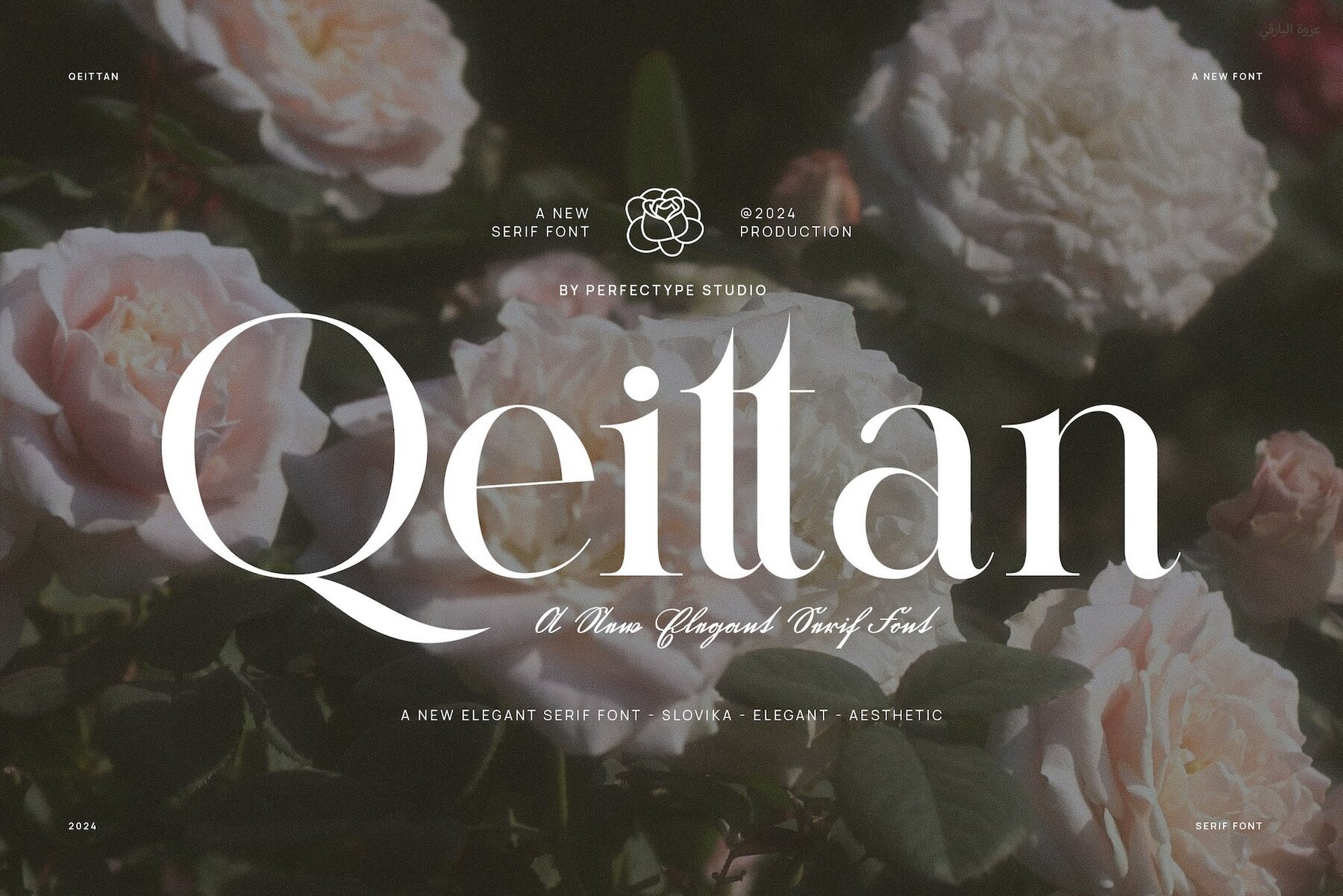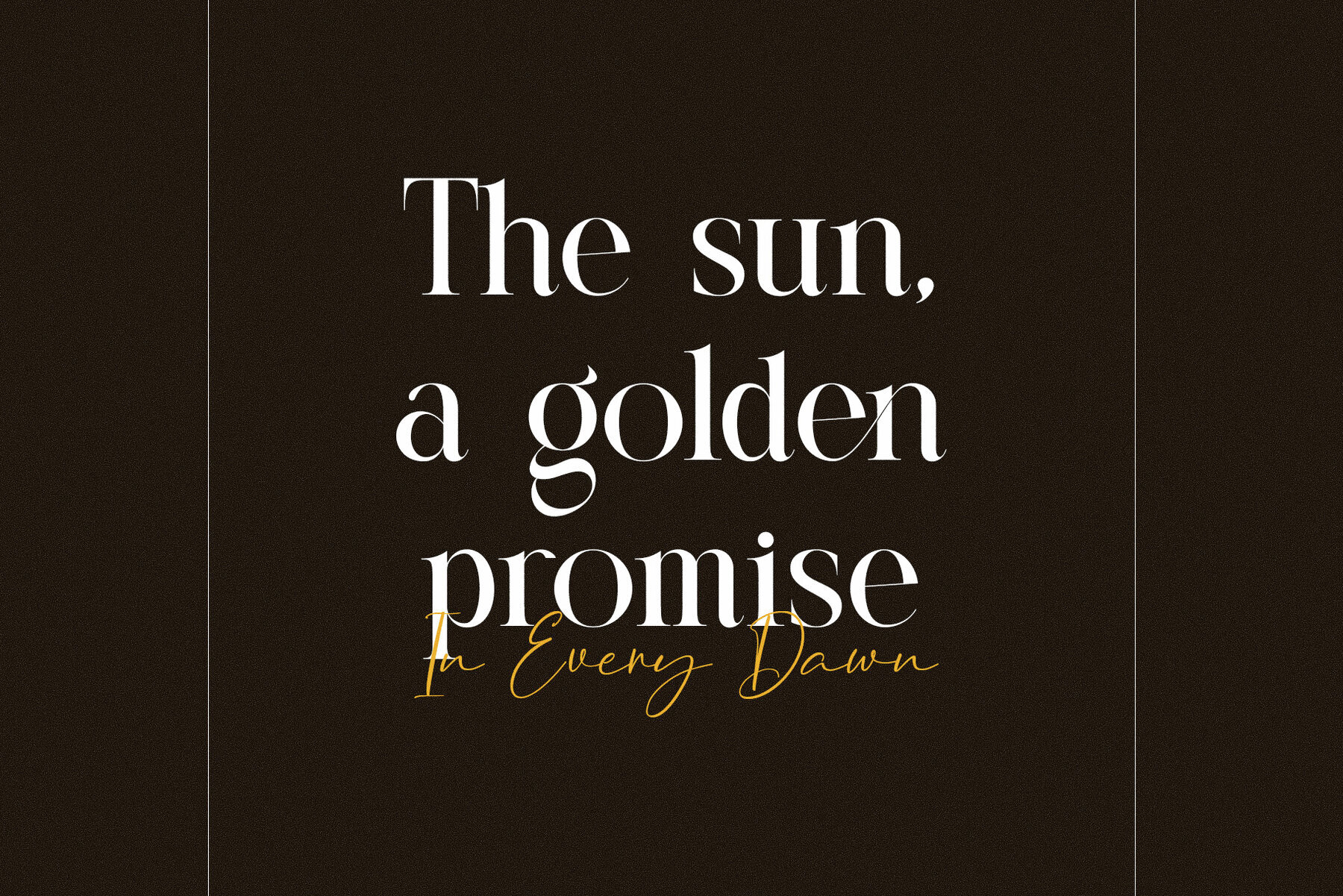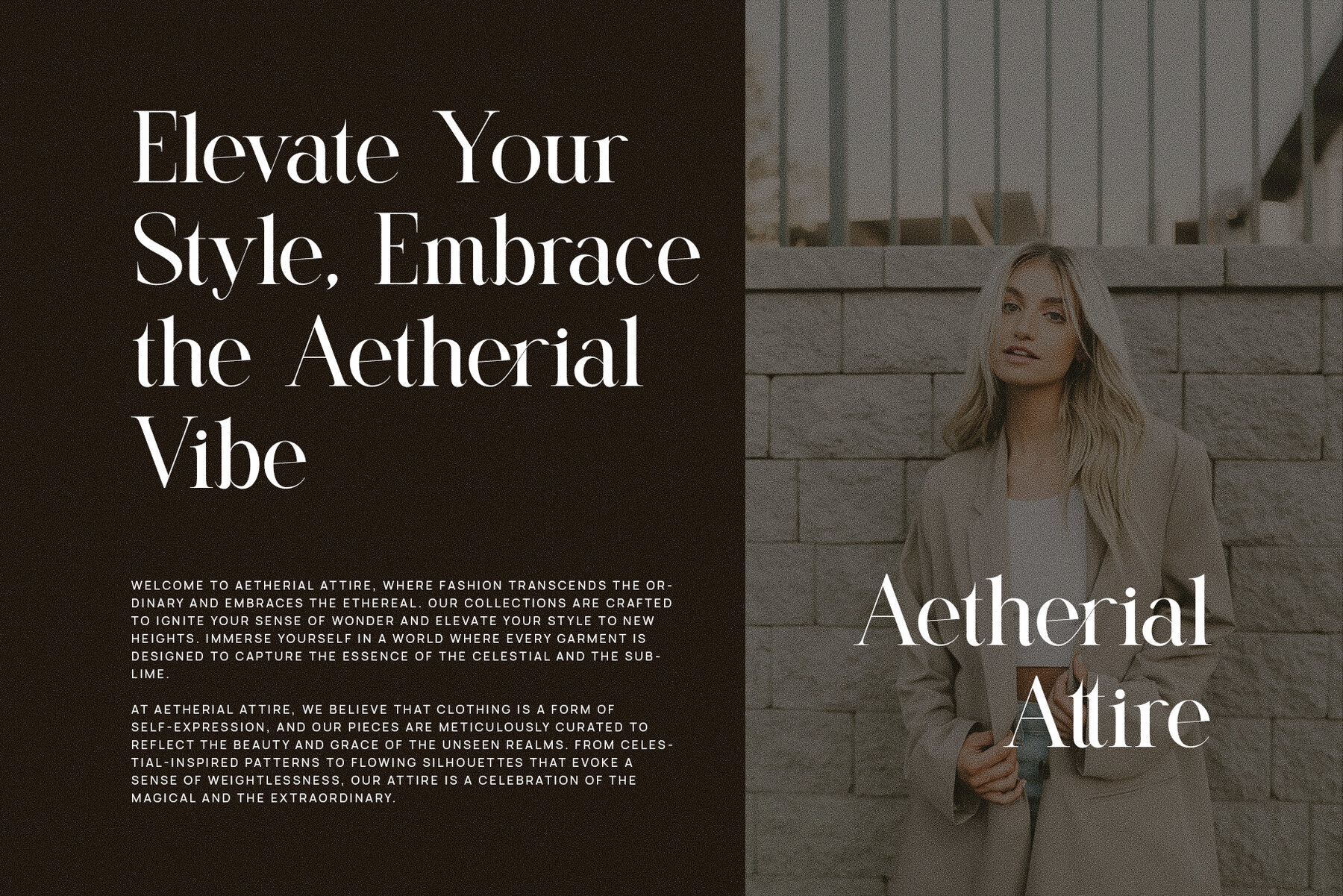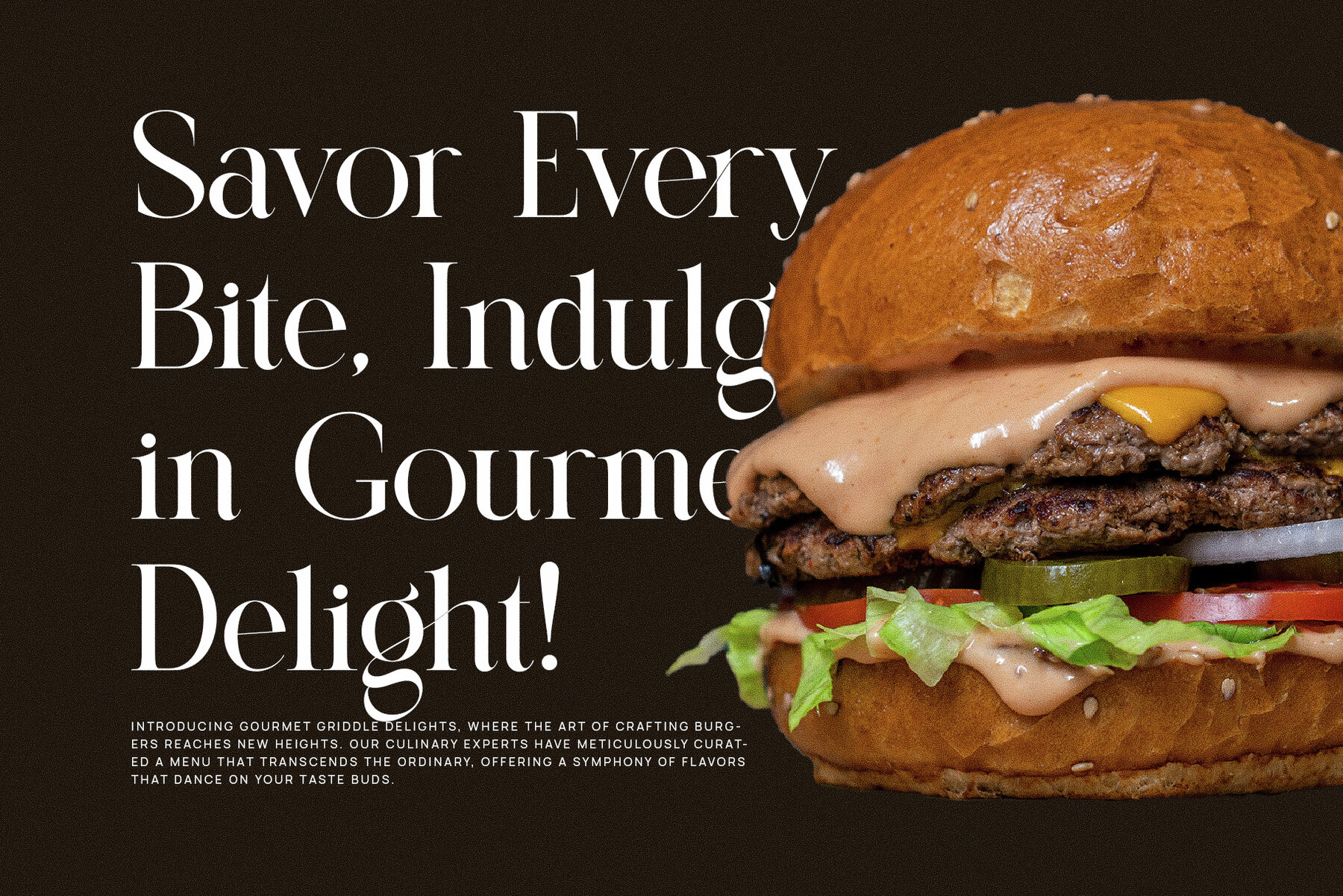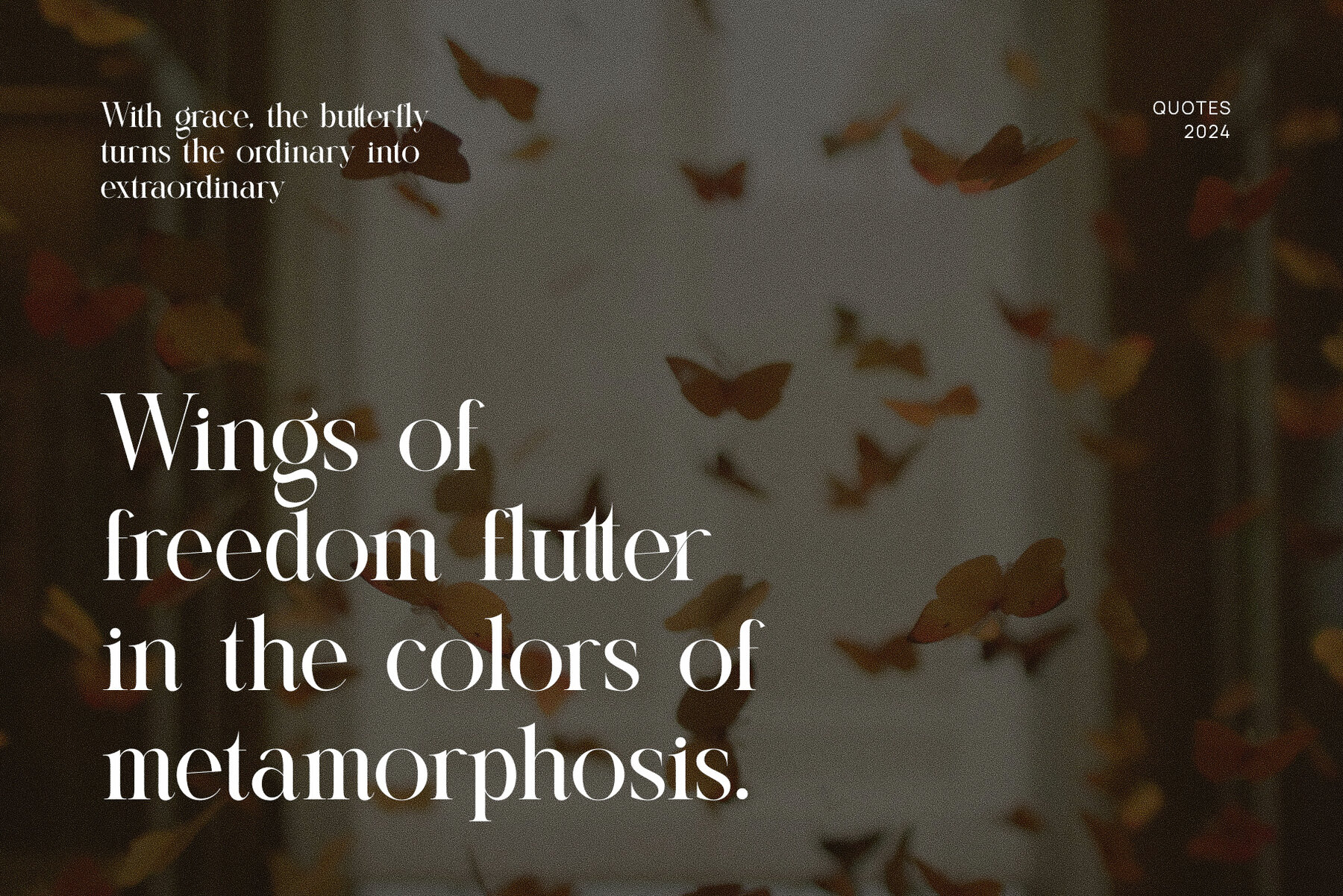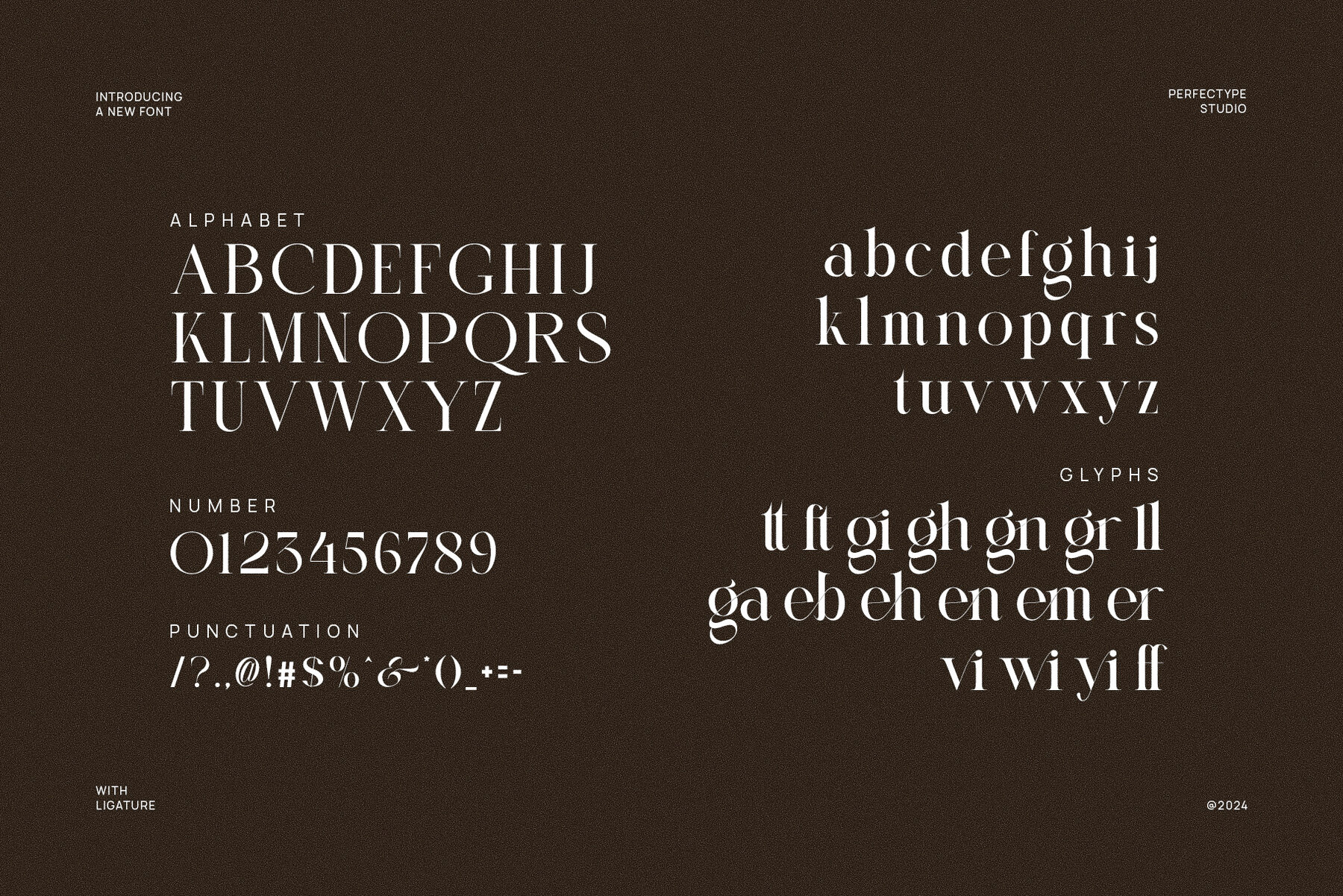
Qeittan Font
Qeittan
Qeittan Elegant Serif Font is a sophisticated typeface that seamlessly blends contemporary design with classic elegance. Its unique structure, characterized by delicate serifs and graceful curves, offers a distinctive appearance that enhances a wide range of design projects. With stunning ligatures and alternate characters, Qeittan provides customizable typography options, making it both graceful and versatile. This font is ideal for upscale branding, logos, and visual identities, infusing each project with a high-end aesthetic.
Perfect for a sophisticated boutique logo, luxurious product packaging, or an elegant editorial layout, Qeittan adds refinement and class to your designs. Its balanced proportions and readable letterforms ensure it functions beautifully in both large headlines and smaller body text. This versatility makes Qeittan a valuable choice for applications ranging from websites and advertisements to magazines. Particularly well-suited for industries such as fashion, food, lifestyle, and luxury goods, Qeittan delivers a blend of modern appeal and timeless elegance essential for a polished visual identity.
Whether used in print or digital media, Qeittan Elegant Serif Font ensures a refined, high-end look across all platforms. It is the perfect choice for creating memorable branding and design that leaves a lasting impression. With its sophisticated charm and elegant flair, Qeittan enhances projects with unique and timeless typography.